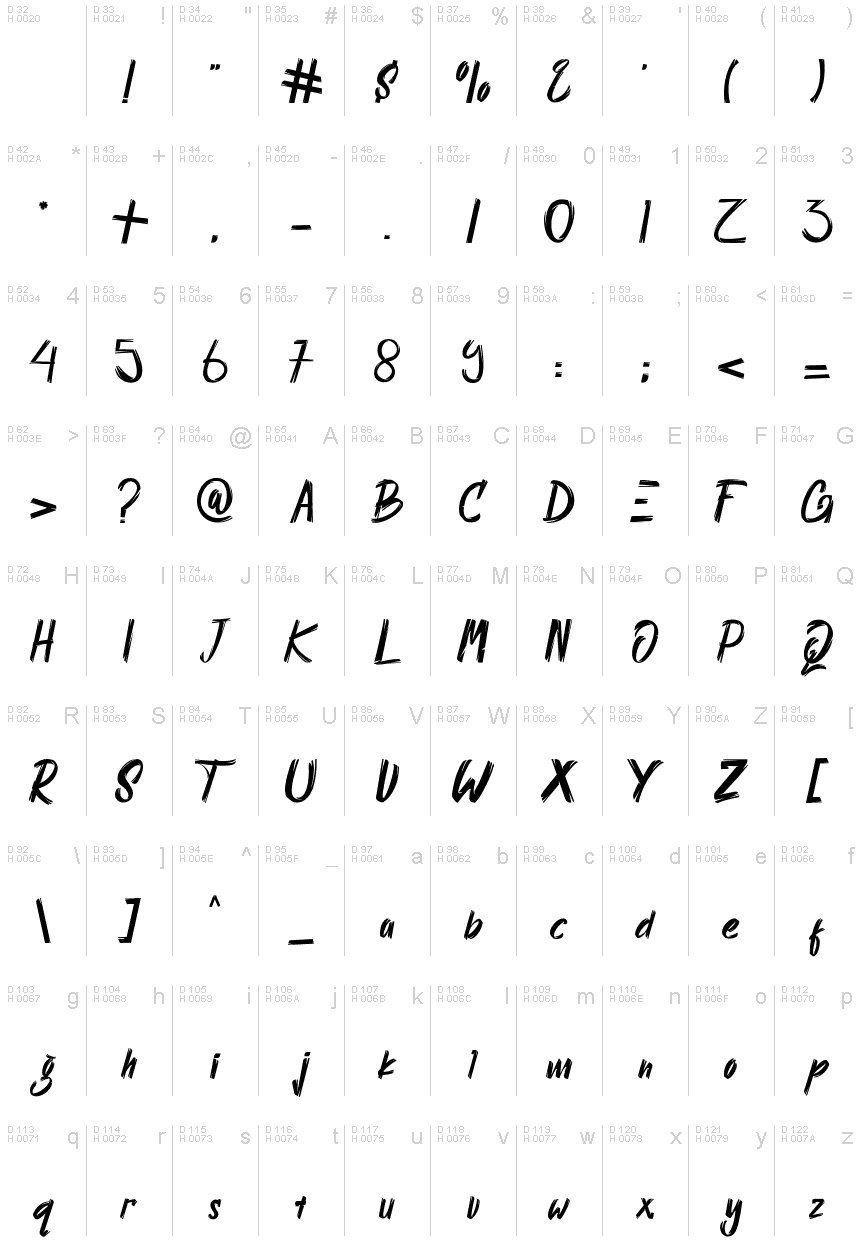
Scratch
Scratch is an authentic display font, simple but powerful for your design. This font can you use for street design, skateboard art, surfing board design, and a T-shirt is really powerful much other design with this display font.